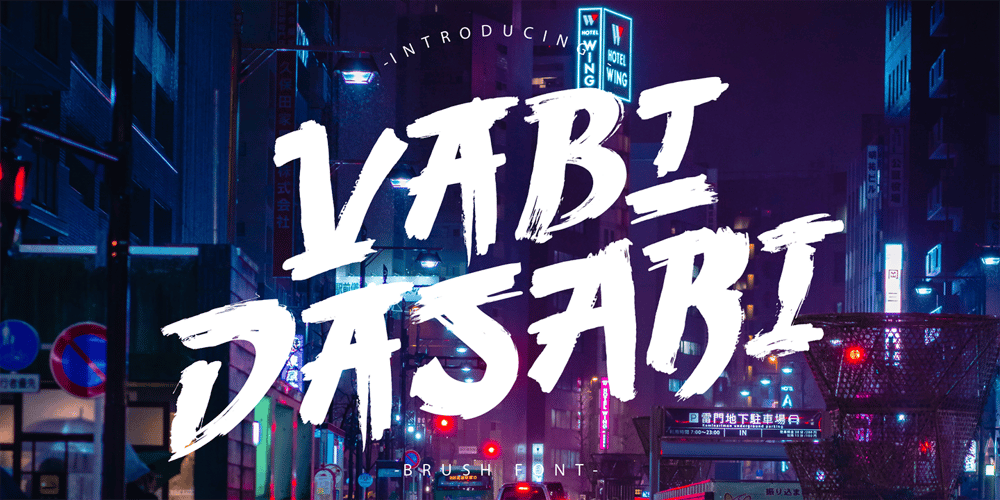
Vabi Dasabi Font Family was designed by Ekaterina Chernysheva and published by Chekart. Vabi Dasabi contains 1 styles and family package options. Vabi Dasabi is a unique japanese hand drawn brush font. It comes with uppercase and lowercase characters, set of punctuation marks, numbers, alternative set of latin characters and numbers, Cyrillic characters, ligatures and multilingual support.Perfect for logos, quotes, posters, branding projects, product packaging, t-shirt, book cover, greeting cards and applicable for any graphic design.